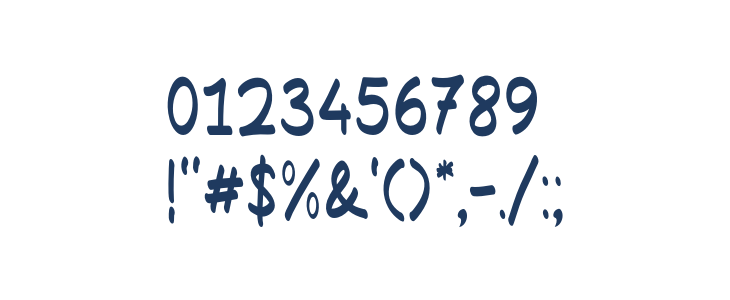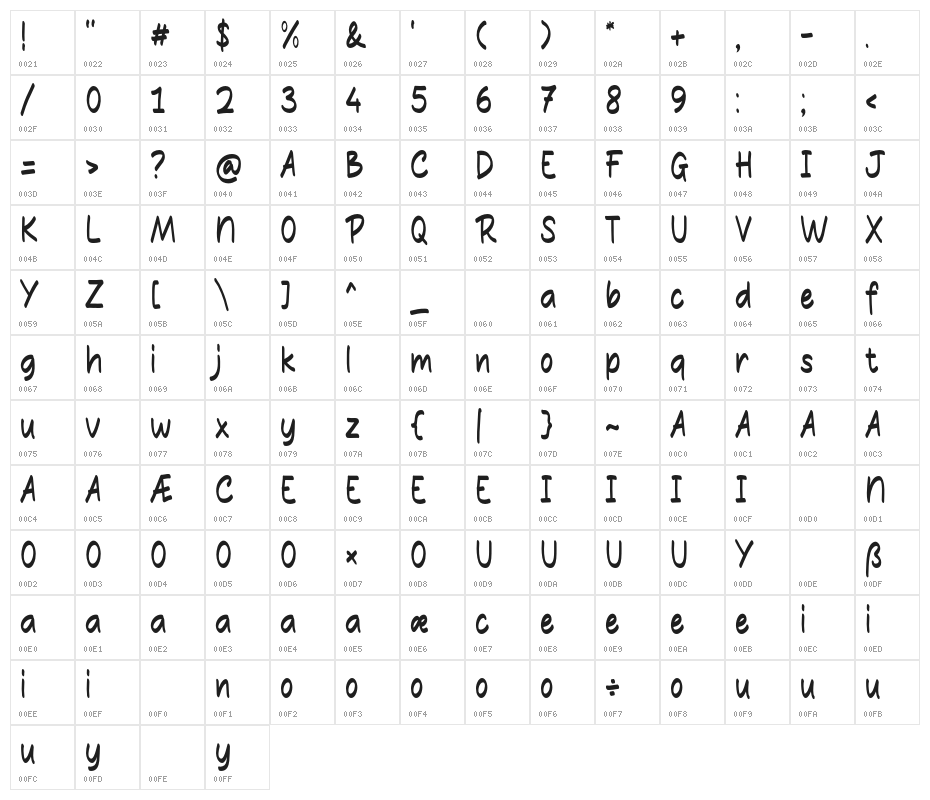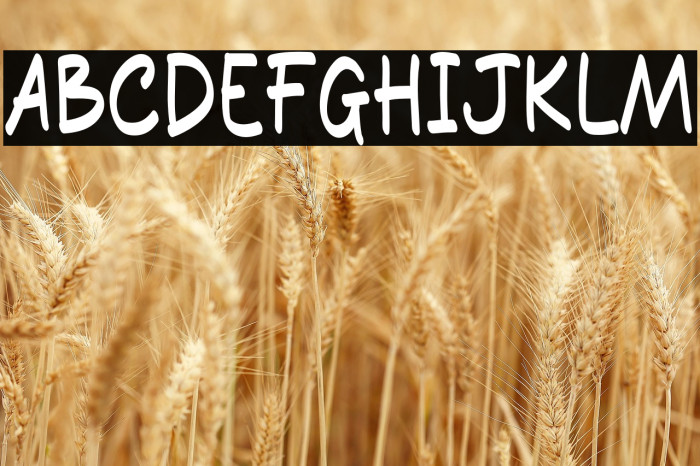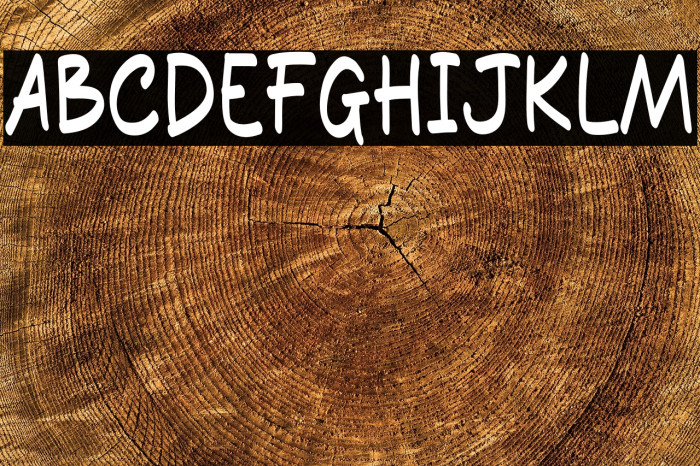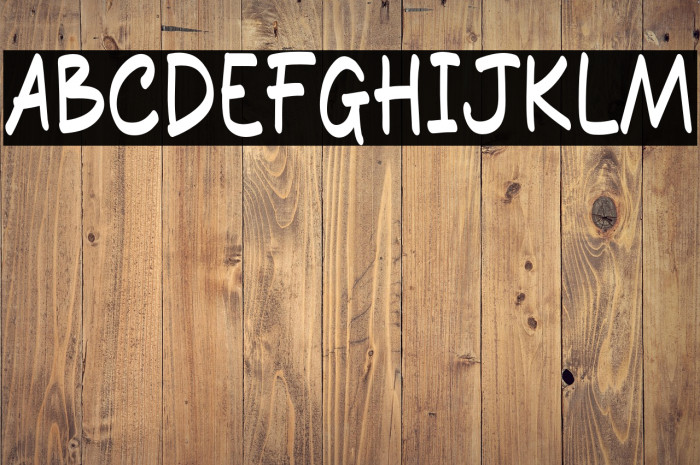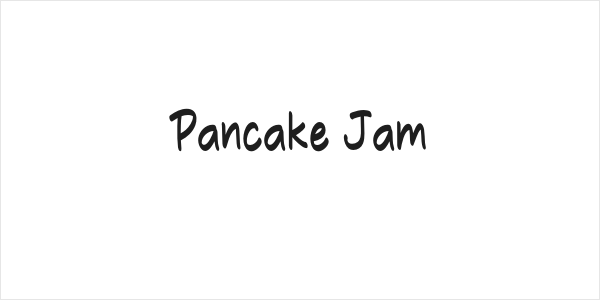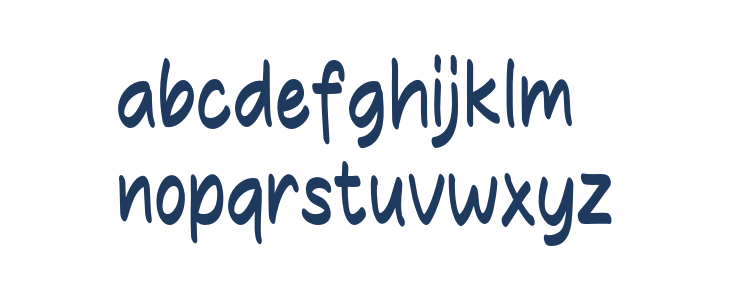
Pancake Jam Font
Pancake Jam Description
This playful and bold font features a handwritten style with a casual and friendly appearance. The characters are slightly irregular, adding a whimsical touch to the text. The strokes are thick and rounded, giving it a soft and approachable feel. The font maintains a consistent weight throughout, with a moderate character spacing that ensures readability. Its unique style makes it suitable for projects that require a personal and informal touch, such as children's books, greeting cards, or playful branding materials. The font's charm lies in its ability to convey warmth and creativity, making it a versatile choice for various design applications.
| Proposed Projects | Children's books, greeting cards, playful branding, informal invitations. |